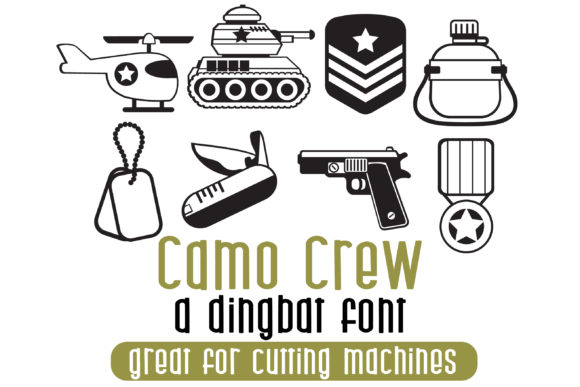
Attention all creative warriors! Unleash your inner soldier with the Camo Crew Font, a bold and battle-hardened dingbat font that will conquer any design challenge. With 26 exclusive army-themed images, this font is your secret weapon for creating designs that stand out like a general's uniform.
Picture this: your designs transformed into a camouflage canvas, where tanks, grenades, and dog tags dance across the page. The Camo Crew Font is not just a font; it's an arsenal of visual firepower that will make your designs march to victory.
So, why settle for ordinary fonts when you can have the Camo Crew Font? It's the ultimate choice for:
- Unleashing your creativity on military-themed designs
- Creating eye-catching posters, flyers, and social media graphics
- Adding a touch of battle-ready flair to your branding
- Conquering the design world with your unique style